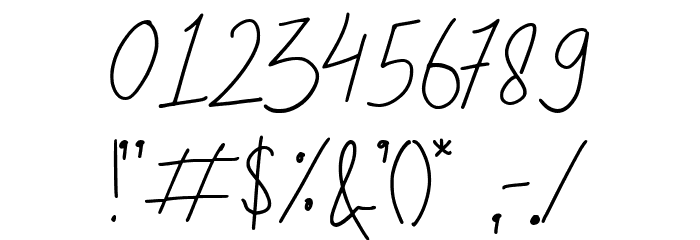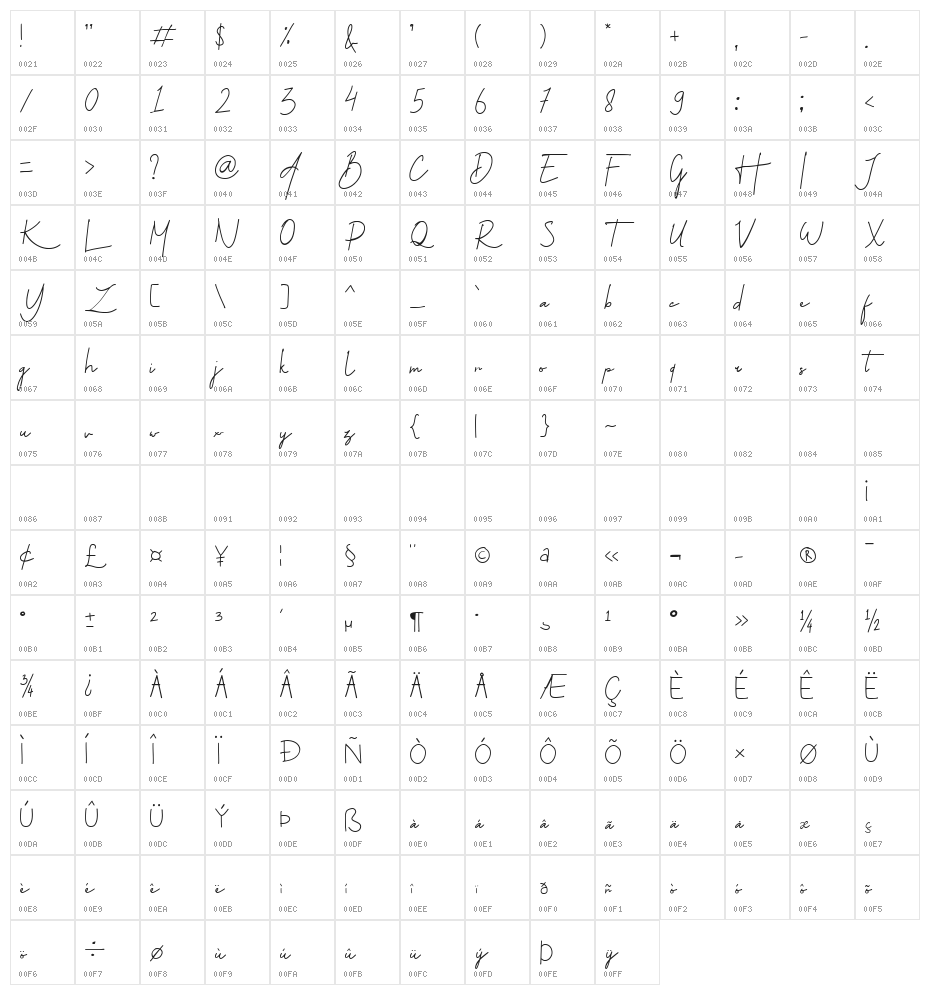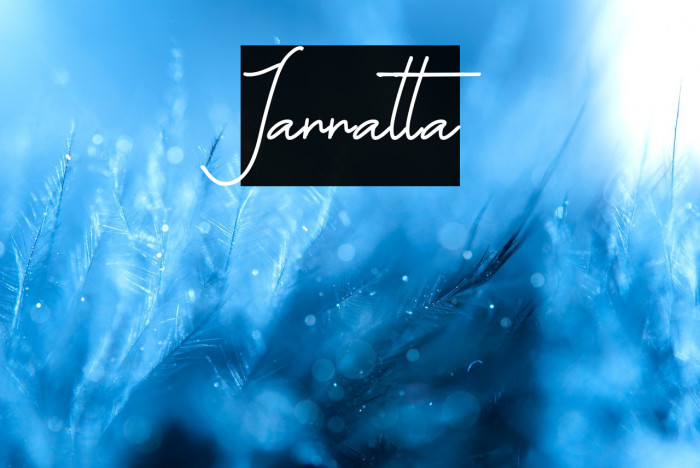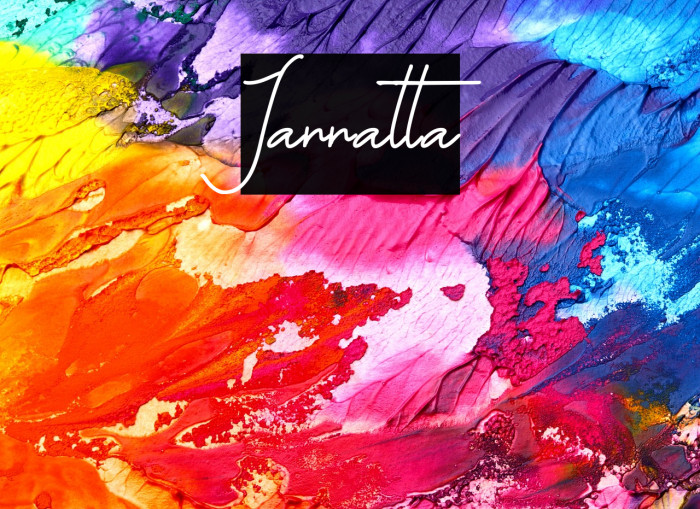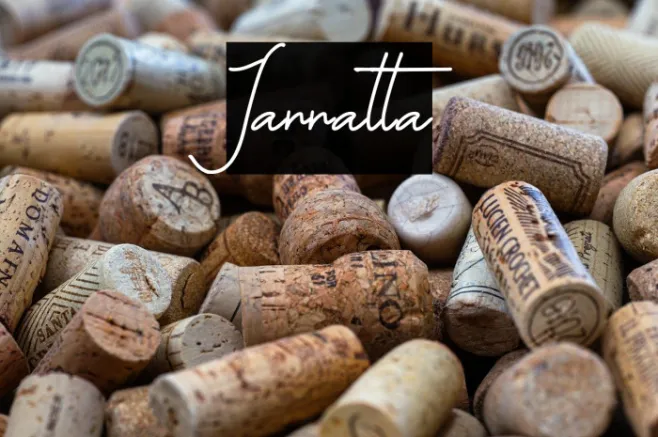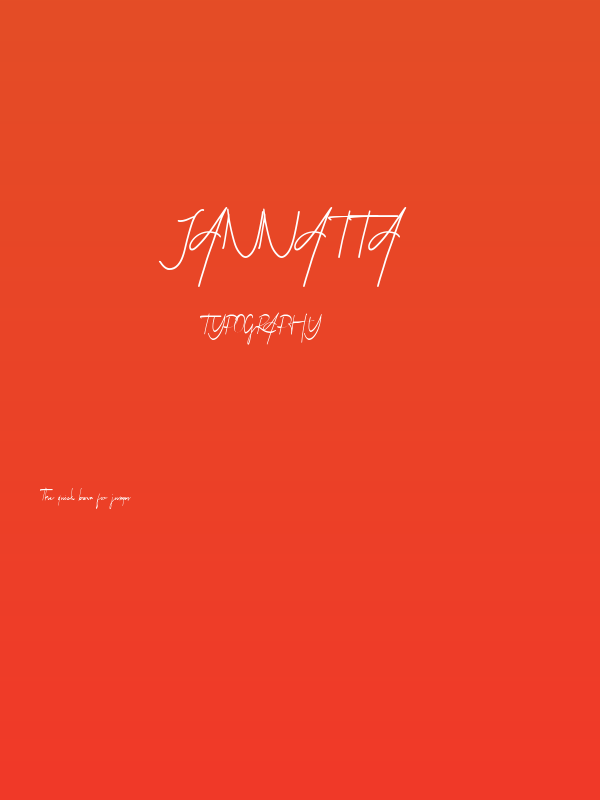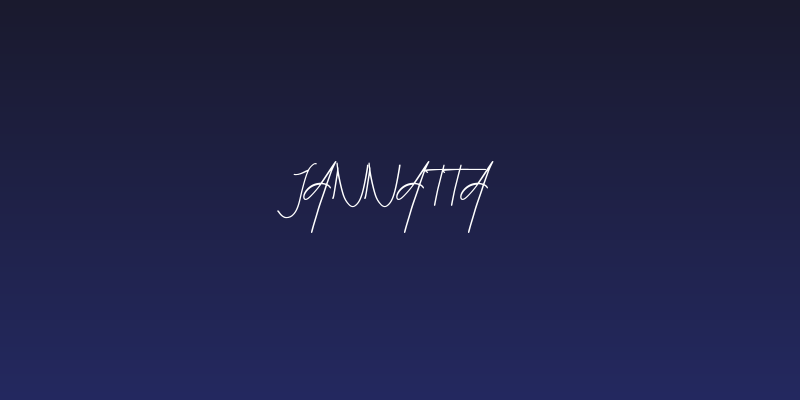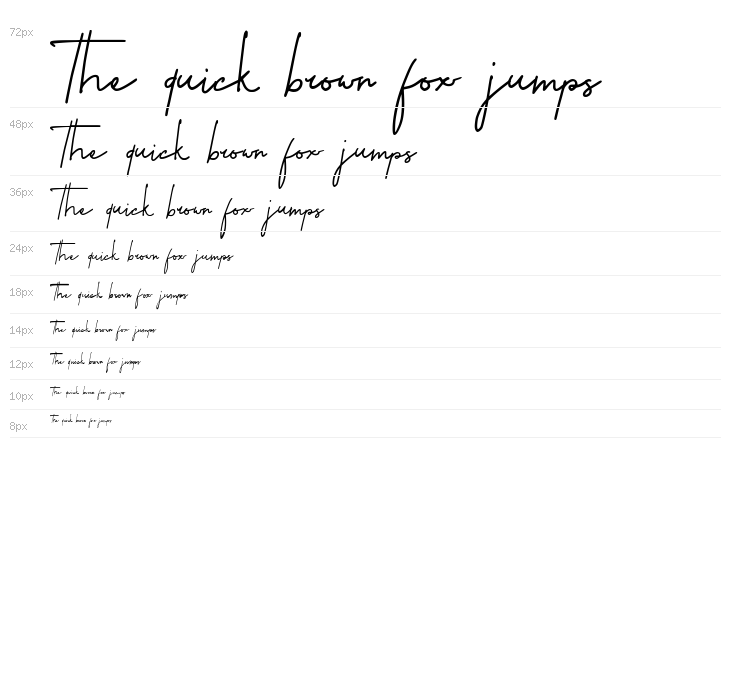
Jannatta Font
Jannatta Description
This font exudes a lively and expressive handwritten style, characterized by its fluid and dynamic strokes. The uppercase letters are bold and sweeping, with a sense of movement that suggests a personal touch. The lowercase letters maintain this fluidity, offering a more compact and connected appearance. Numbers and special characters follow the same energetic style, making the font versatile for various creative applications. Its overall appearance is both modern and artistic, suitable for projects that require a personal and informal touch.